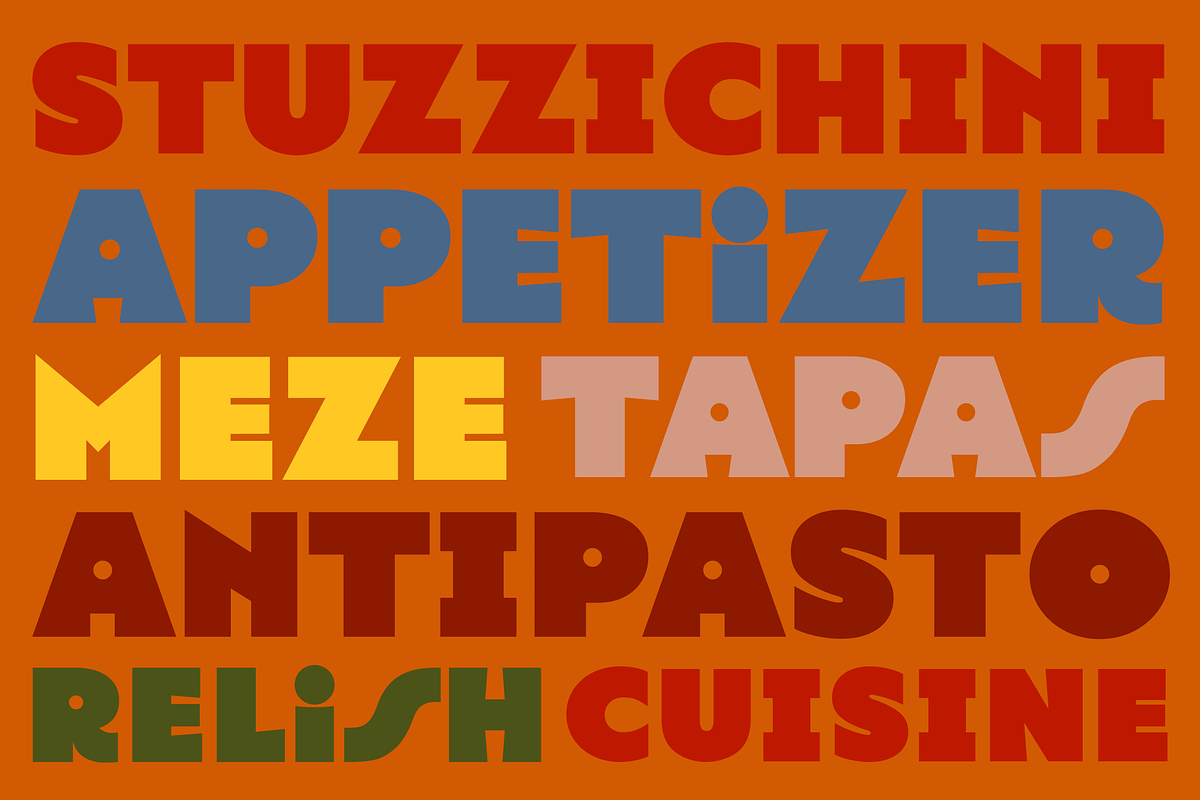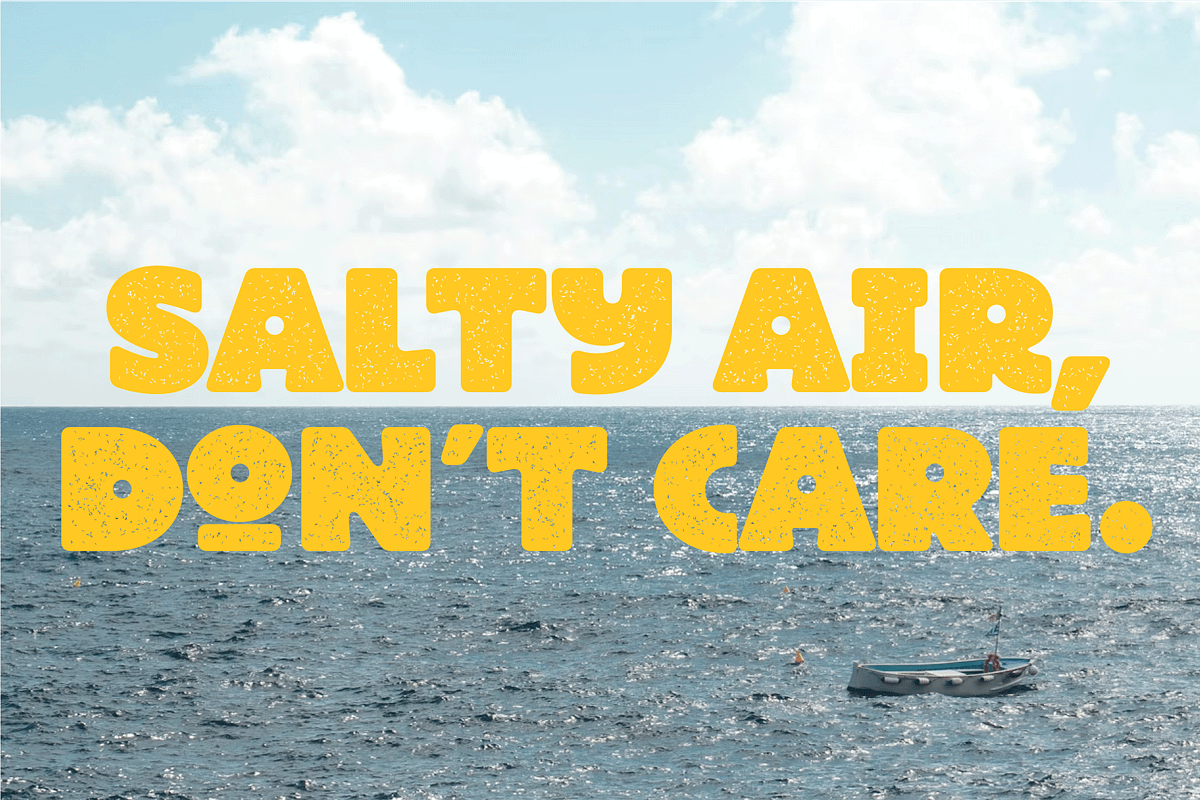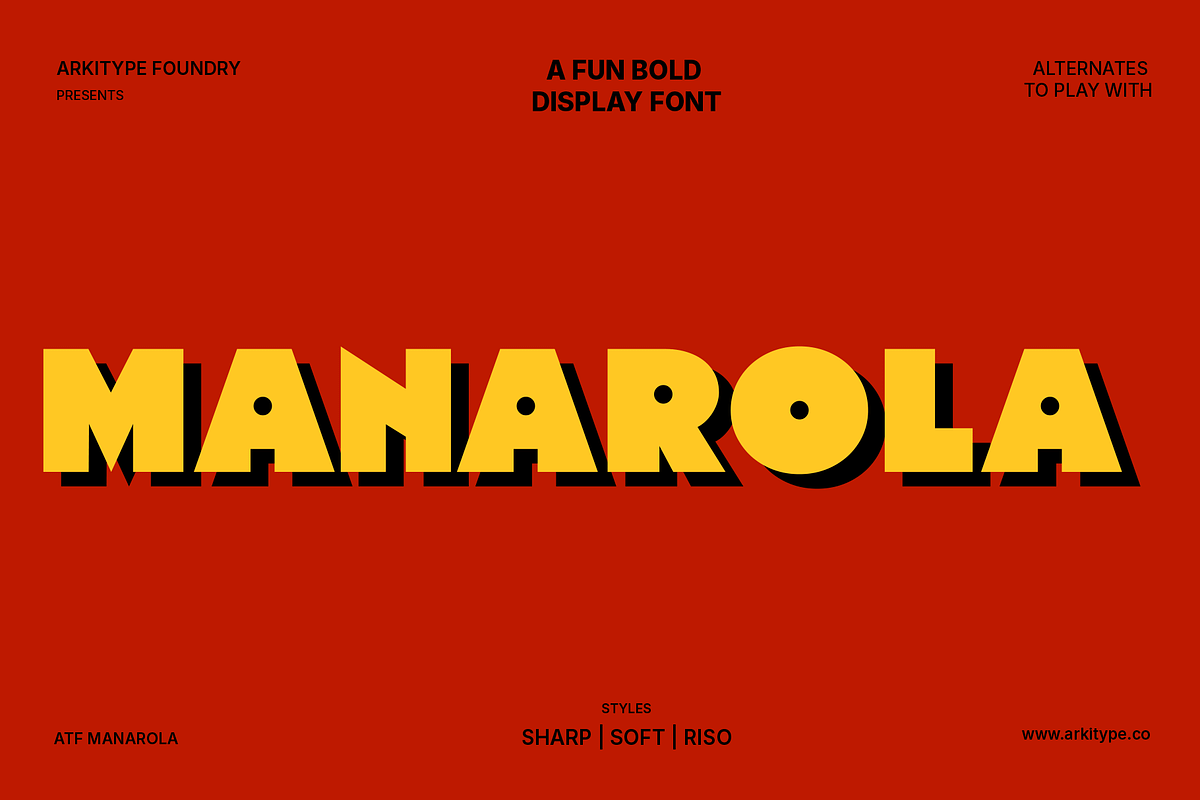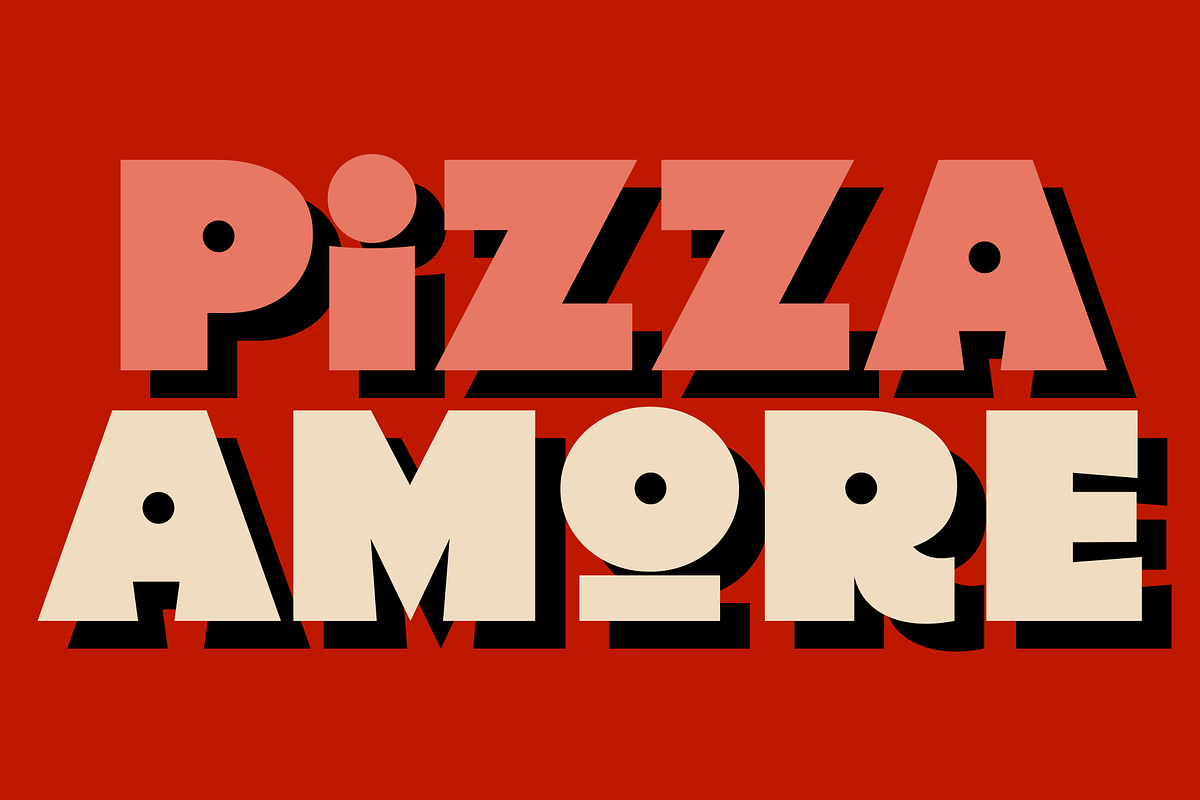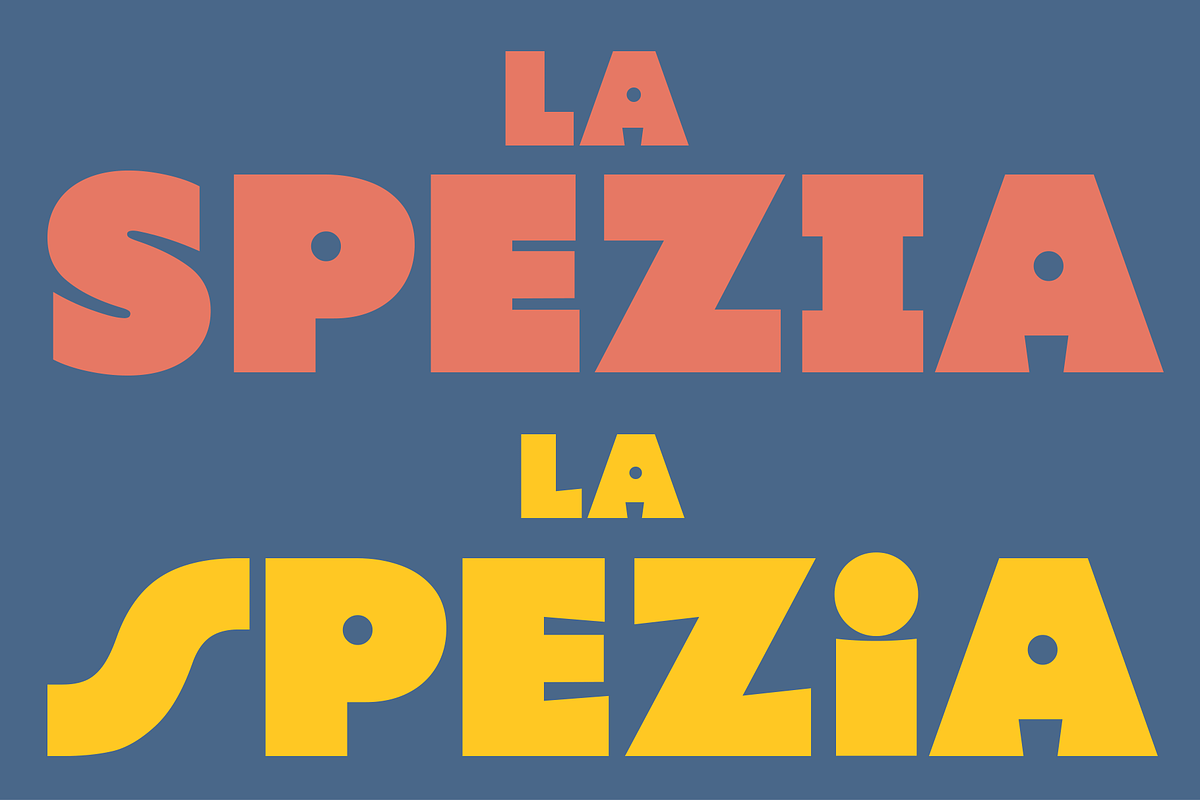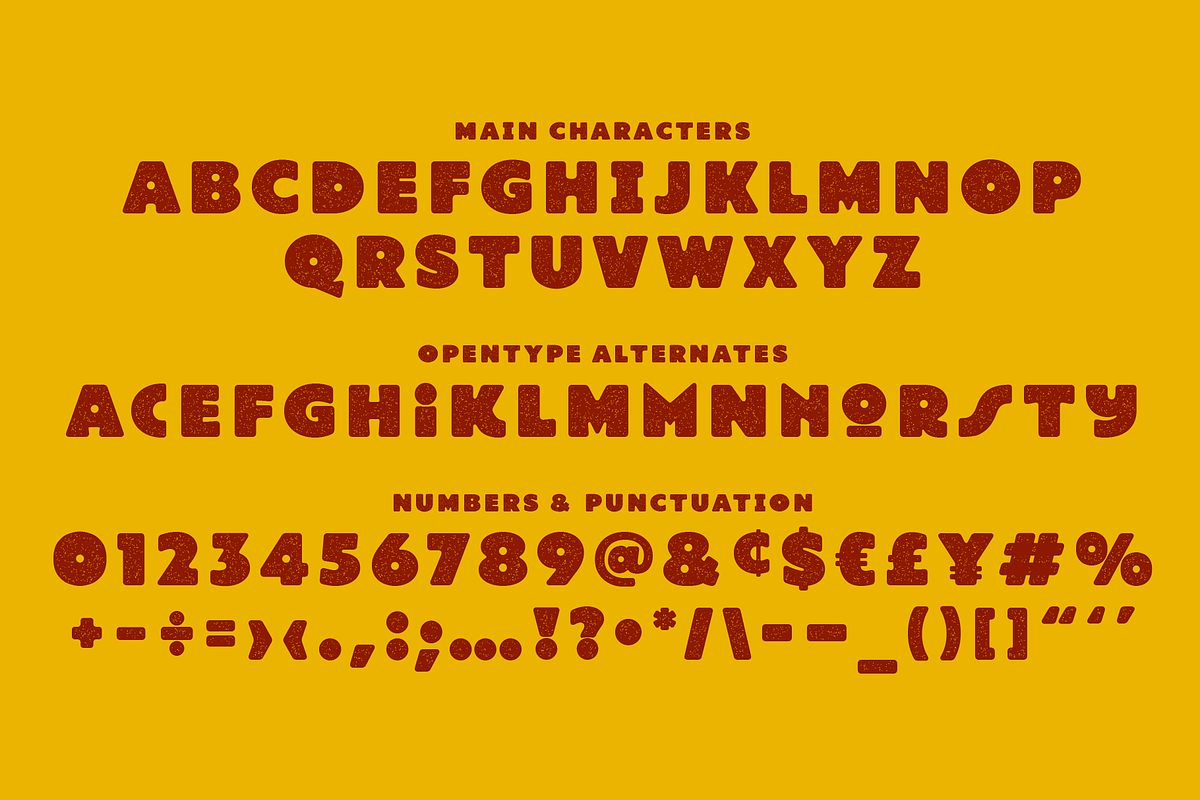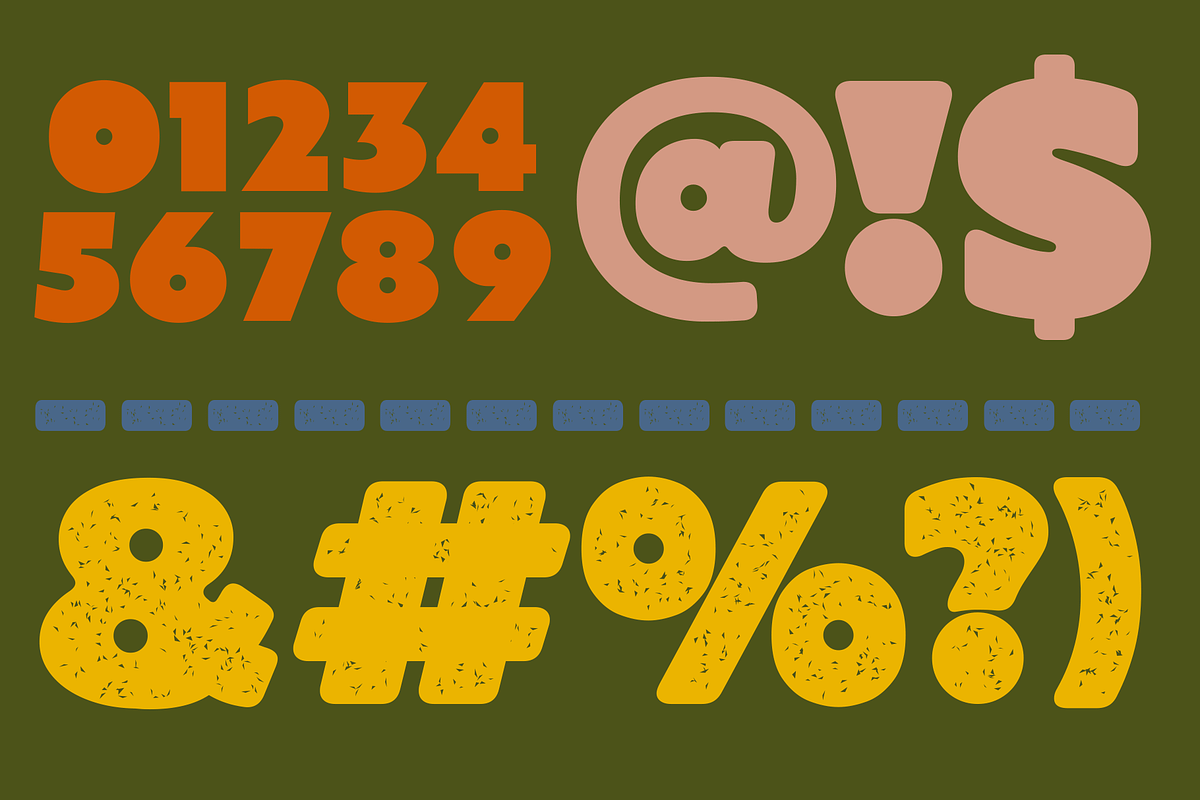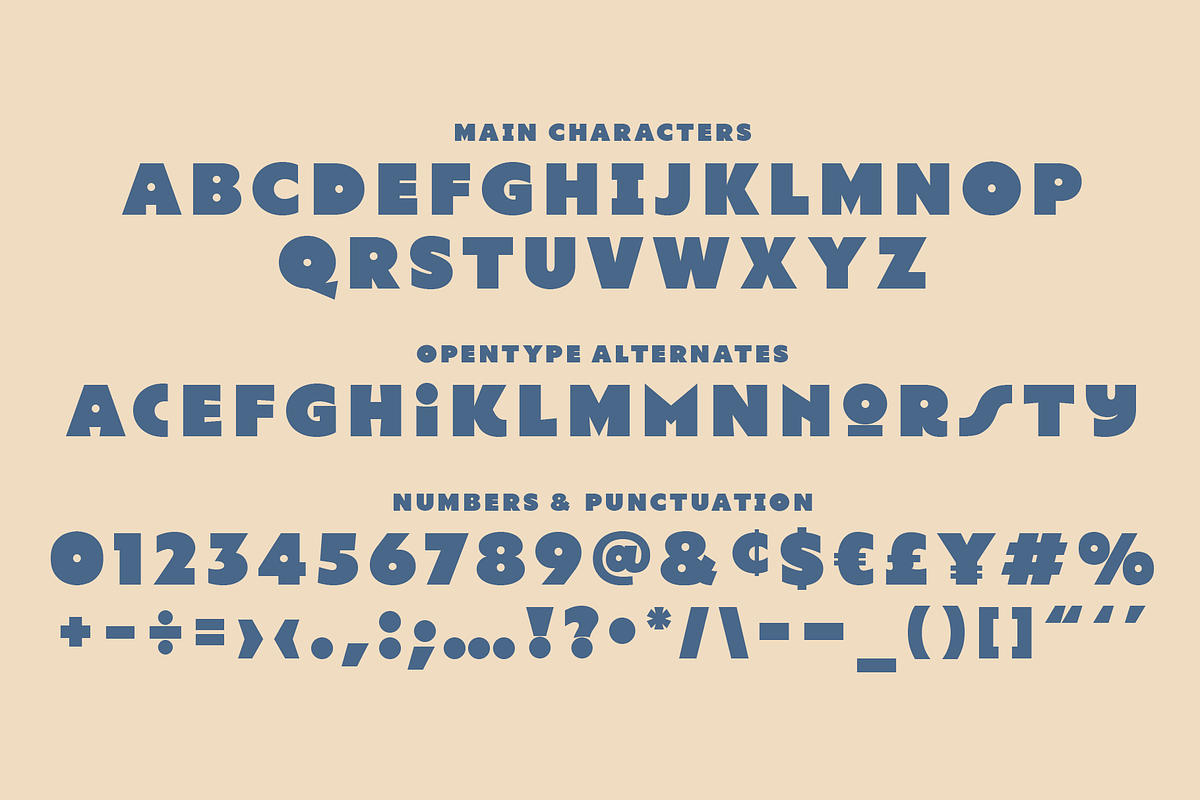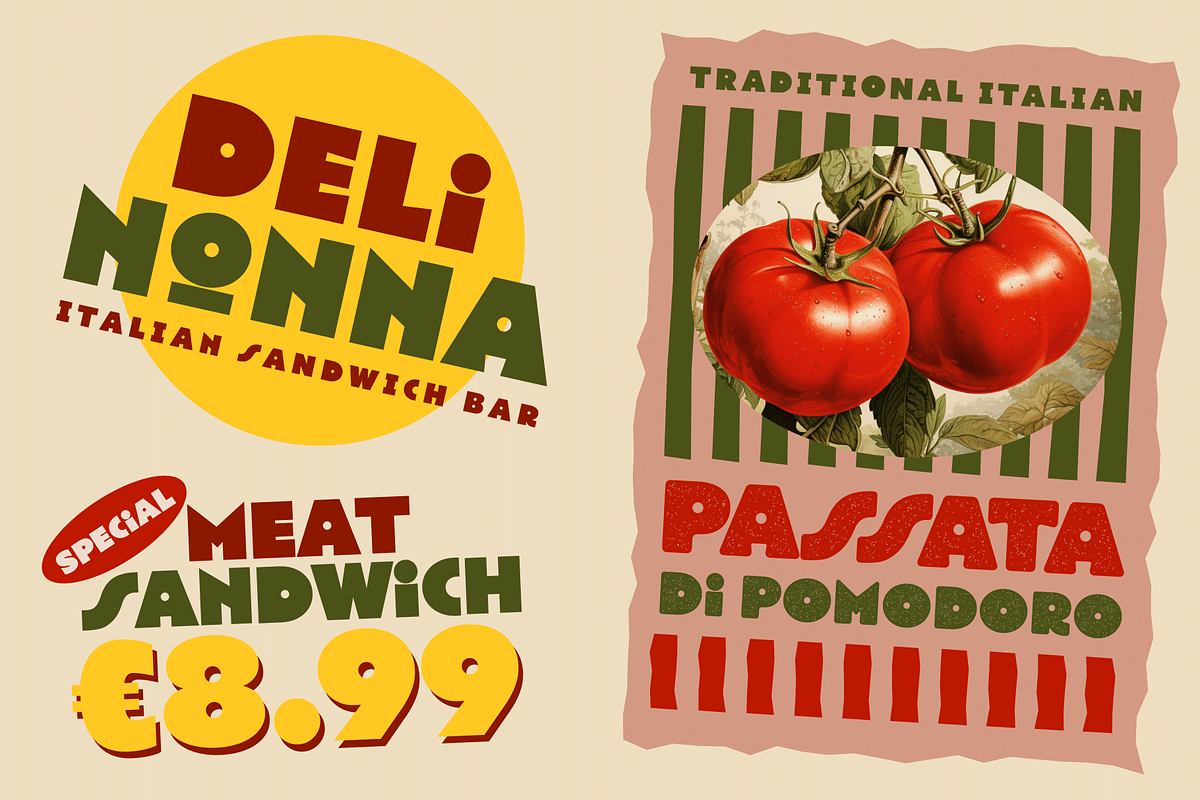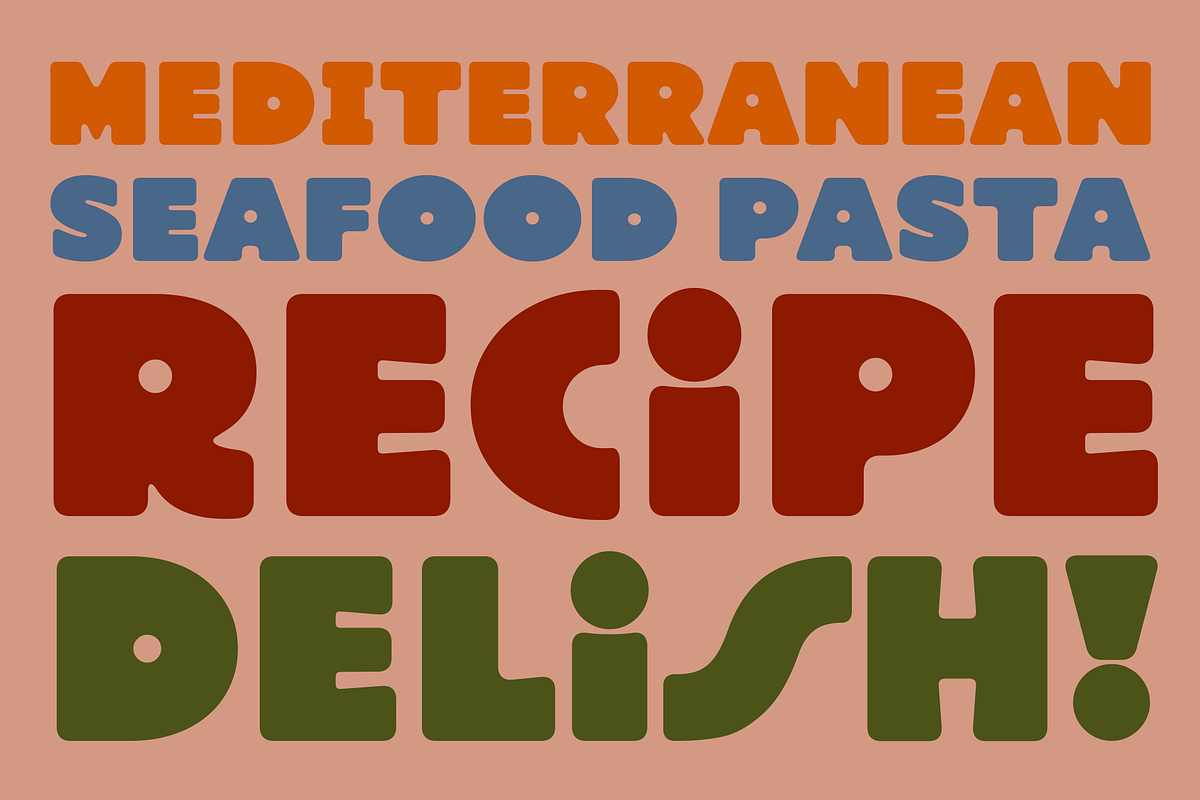
ATF Manarola
ATF Manarola isn’t just a typeface; it’s a sun-drenched invitation to the Italian Riviera. Inspired by the golden era of hand-painted Mediterranean signage, this bold display family captures the rhythmic charm and confident spirit of vintage typography while maintaining a perfectly modern edge. It serves as a bridge between nostalgic craftsmanship and contemporary versatility, making it a powerhouse for designers who need their work to speak with volume and personality.
The family is meticulously crafted across three distinct personalities:
Regular: Offers crisp, clean lines and high-impact clarity for a classic look.
Soft: Rounds off the edges for a friendlier, more approachable, and organic feel.
Soft Riso: Introduces a "ink-bleed" grainy texture that mimics the tactile imperfections of Risograph printing, adding immediate depth and a DIY-chic vibe to your layouts.
With a treasure trove of OpenType alternates and stylistic sets, ATF Manarola provides endless opportunities for customization. Whether you’re crafting a high-end brand identity, designing punchy packaging for artisanal goods, or building a vibrant editorial spread, this typeface ensures your project stands out with undeniable flair. It’s expressive, playful, and ready to turn every headline into a statement piece.